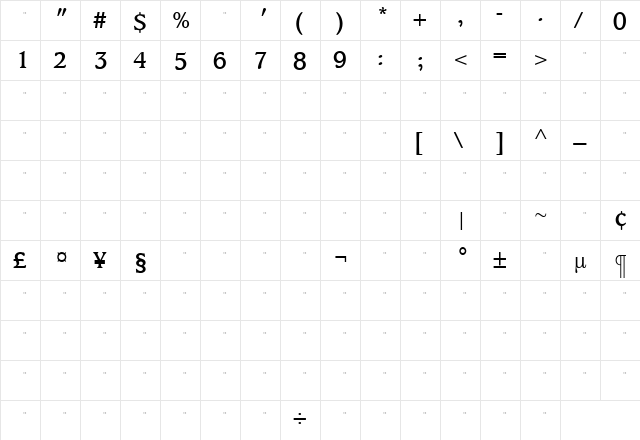
KingsrowMediumTab Roman Font Preview
KingsrowMediumTab Roman
Design Context for KingsrowMediumTab Typeface
KingsrowMediumTab offers clean, dependable letterforms without strong stylistic allegiance, making it a practical choice for designers who need flexibility.